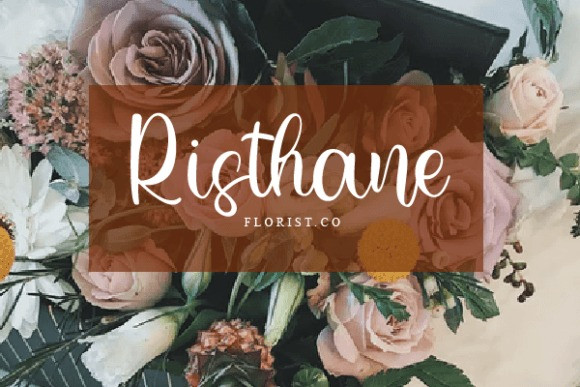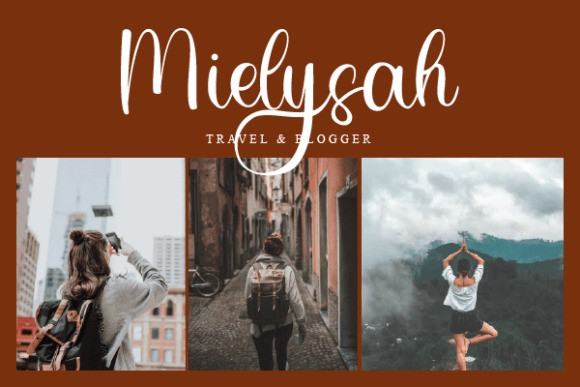
White Modesty Handwritten Font
White Modesty is a relaxed and flowing handwritten font. It has beautiful and casual characters and as a result, it matches a wide pool of designs. White Modesty is PUA encoded which means you can access all of the glyphs and swashes with ease!